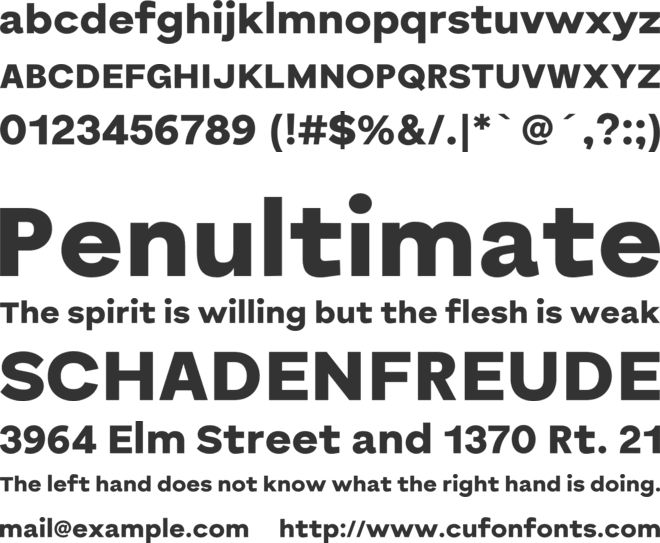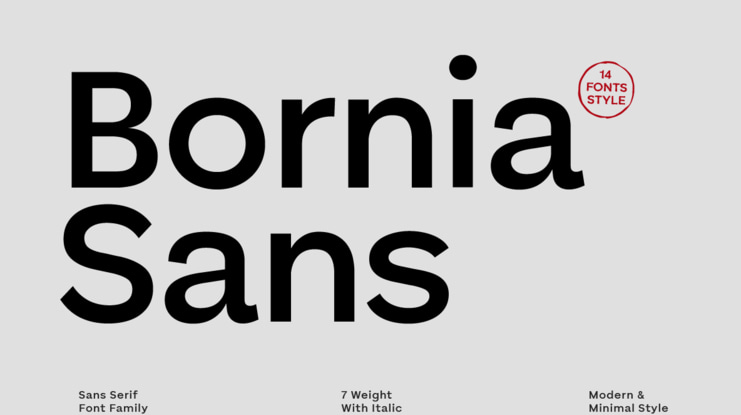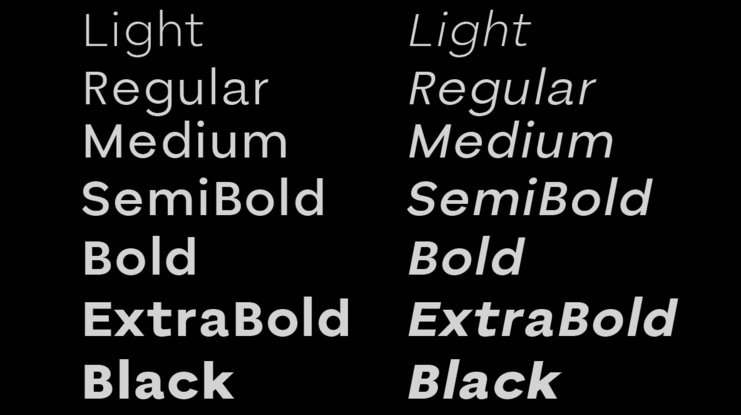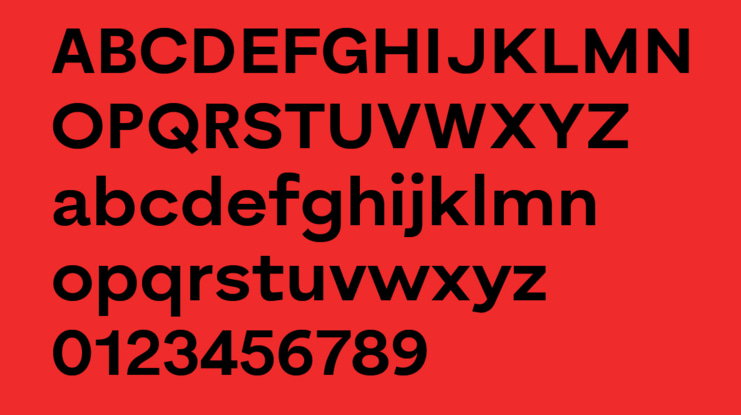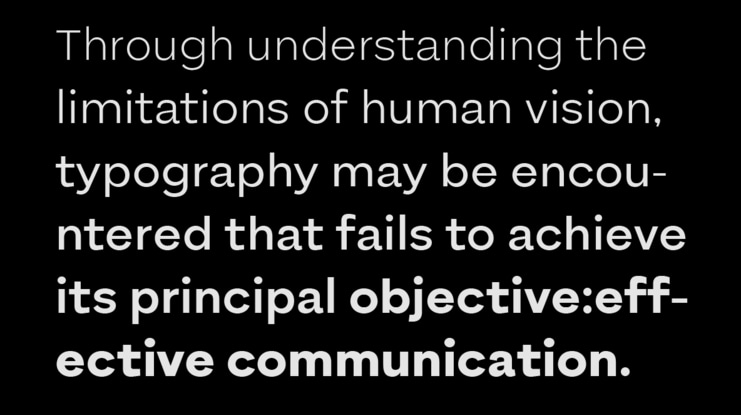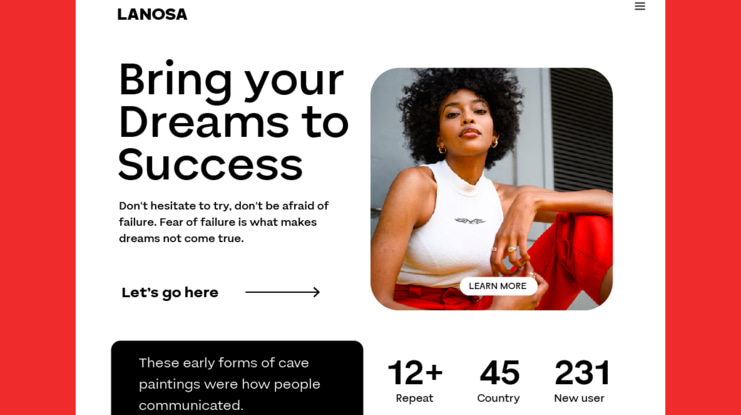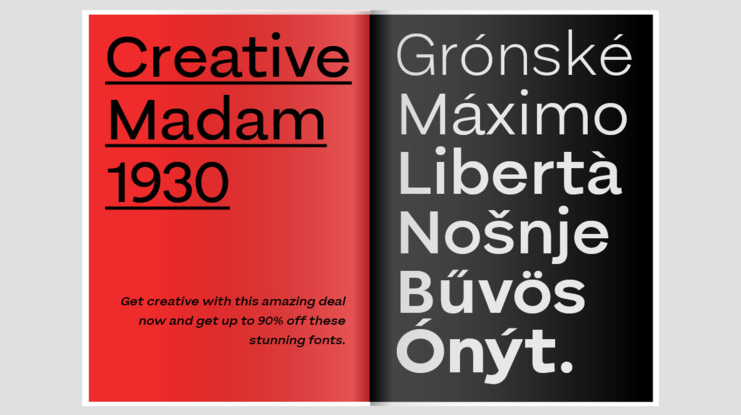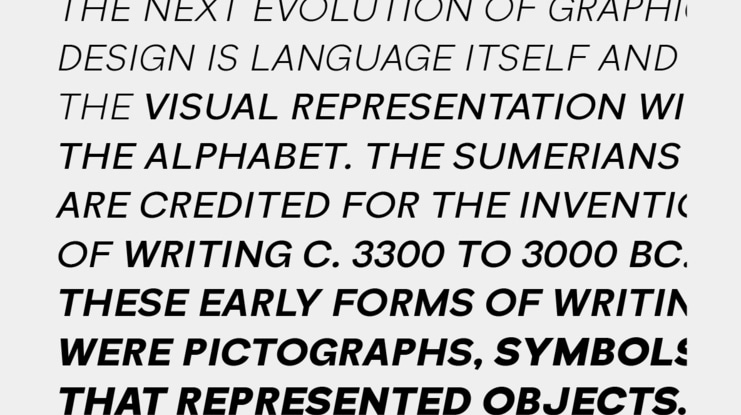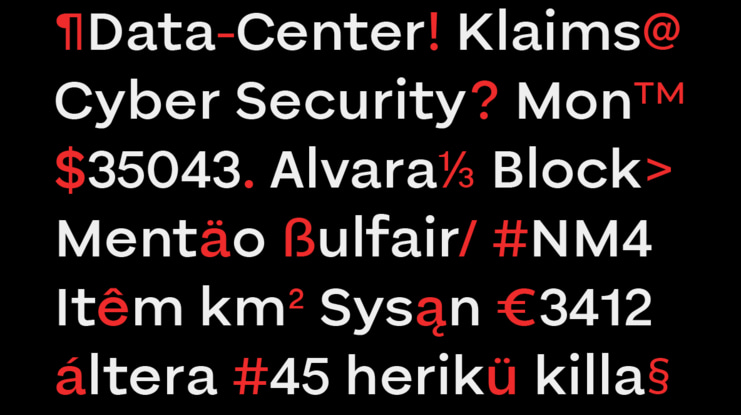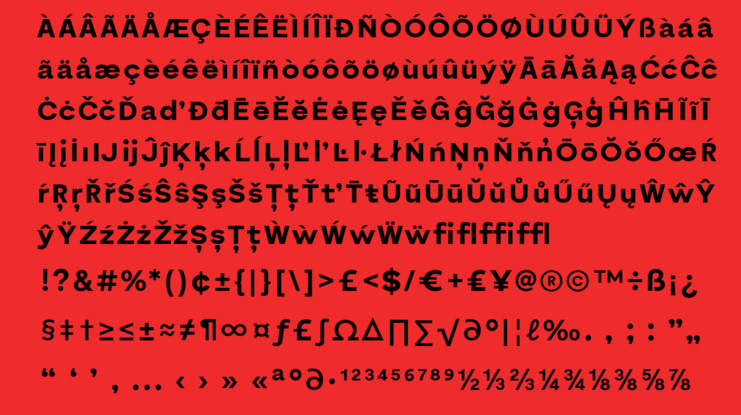
Bornia Sans Font Family
By Abdul Artega
Introducing the Bornia Sans Serif Modern Minimal Font Family – a typeface that exudes sophistication and simplicity. This is a font that exudes a contemporary feel and minimalist look that is sure to captivate your audience.
With a variety of bold, Light-to-Black variants, this font provides a lot of flexibility in use, giving your designs extra charm and appeal.